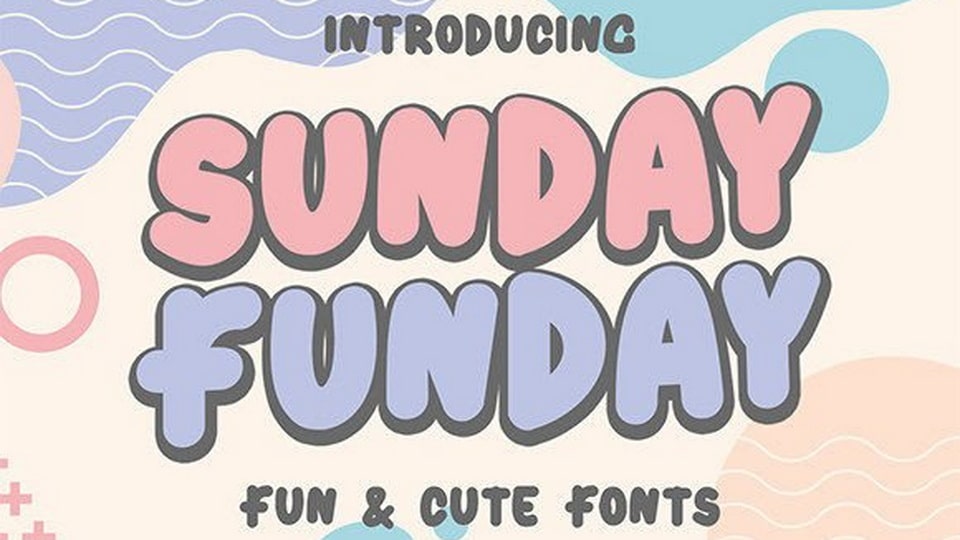
Feb 2, 2025Script & HandwrittenSunday Funday Font Sunday Funday is a fun and child-themed display font full of life. It will add a friendly and quirky feel to any design project! Font DetailsDesigned by: Bluestype StudioWebsiteLicense: Free for personal use Download Sunday Funday FontFile size: 32.42 KBCreated: February 16, 2025Updated: February 16, 2025 Download Explore similar fonts Waloh Font Hello Sunday Font Sunday Hotdog Font Sunday Pizza Font Cheerful Sunday Font Bakula Font # Comic# Funny# Hand-drawn# Handwriting# Playful More fonts by Bluestype StudioCaroline Amanda FontDaily Sunday FontBeauty Sahara FontHidden Spring FontGatteway Signature FontSakinah FontLemon Delight FontJust Believe Font